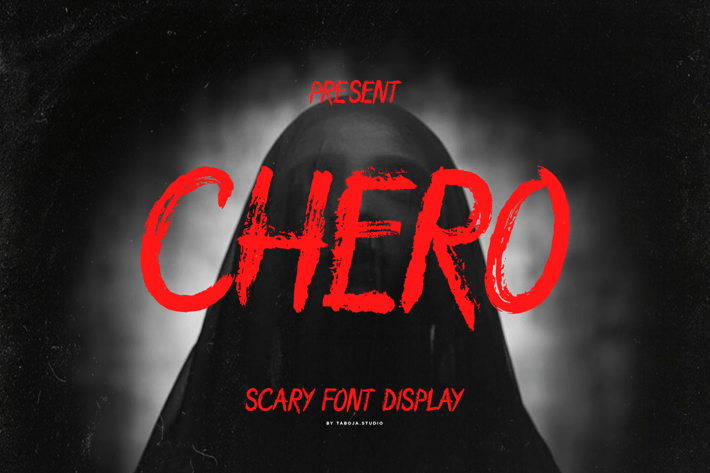
Chero - The Spooky Horror Font
Introducing Chero The Spooky Horror Font brings an eerie and unsettling vibe to your projects, making it perfect for horror movie posters, Halloween-themed designs, or any project that demands a touch of fear-inducing typography. Its jagged edges and haunting curves create an ominous atmosphere, capturing the essence of the macabre.
Chero Features:
Regular
Uppercase with 2 Styles
Various Alternates
Numerals & Punctuation
Accented characters